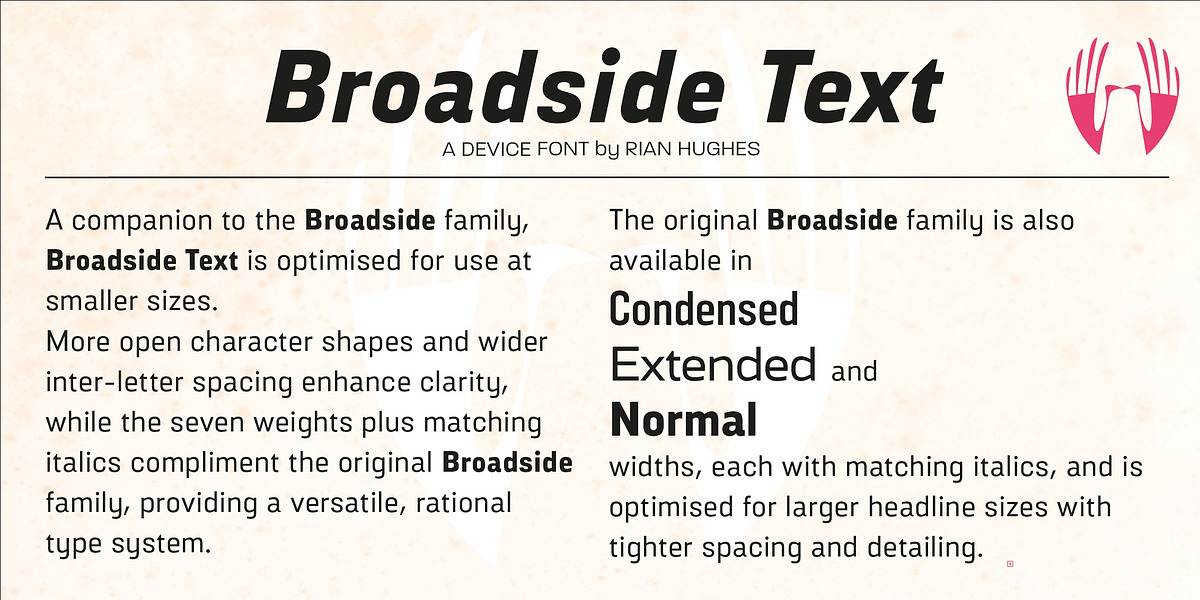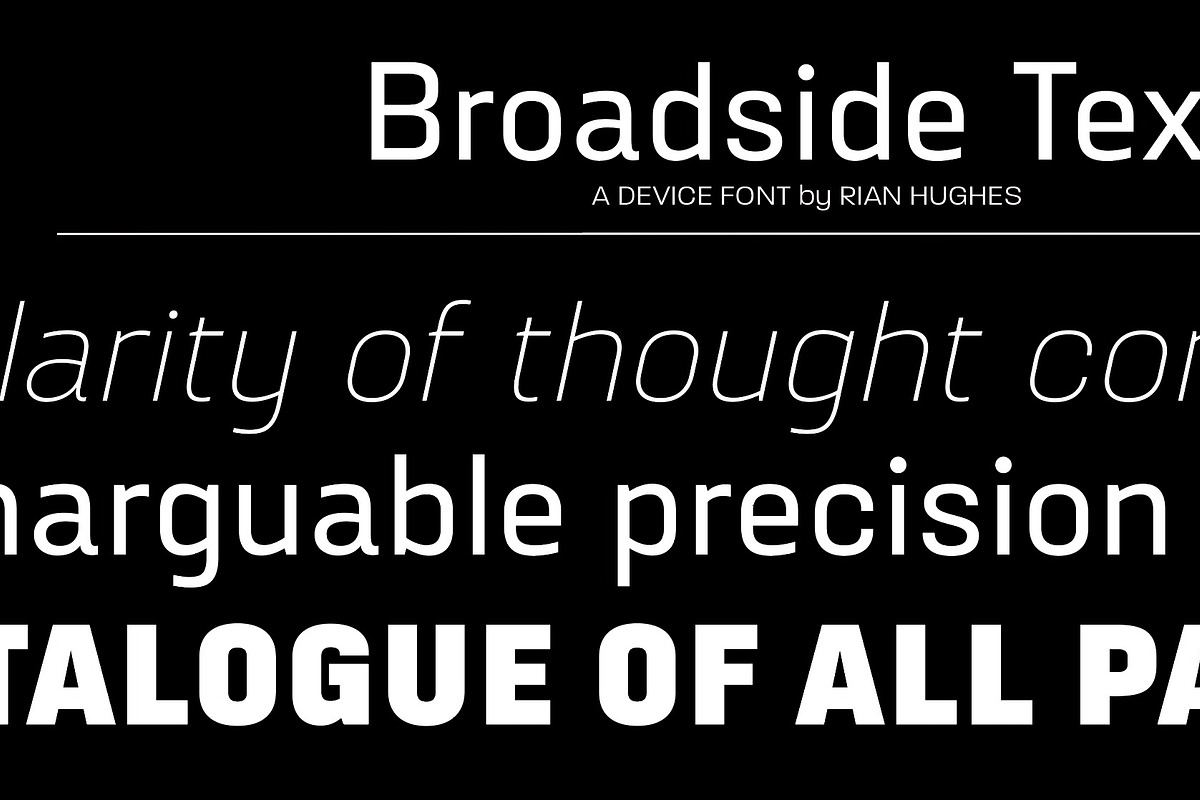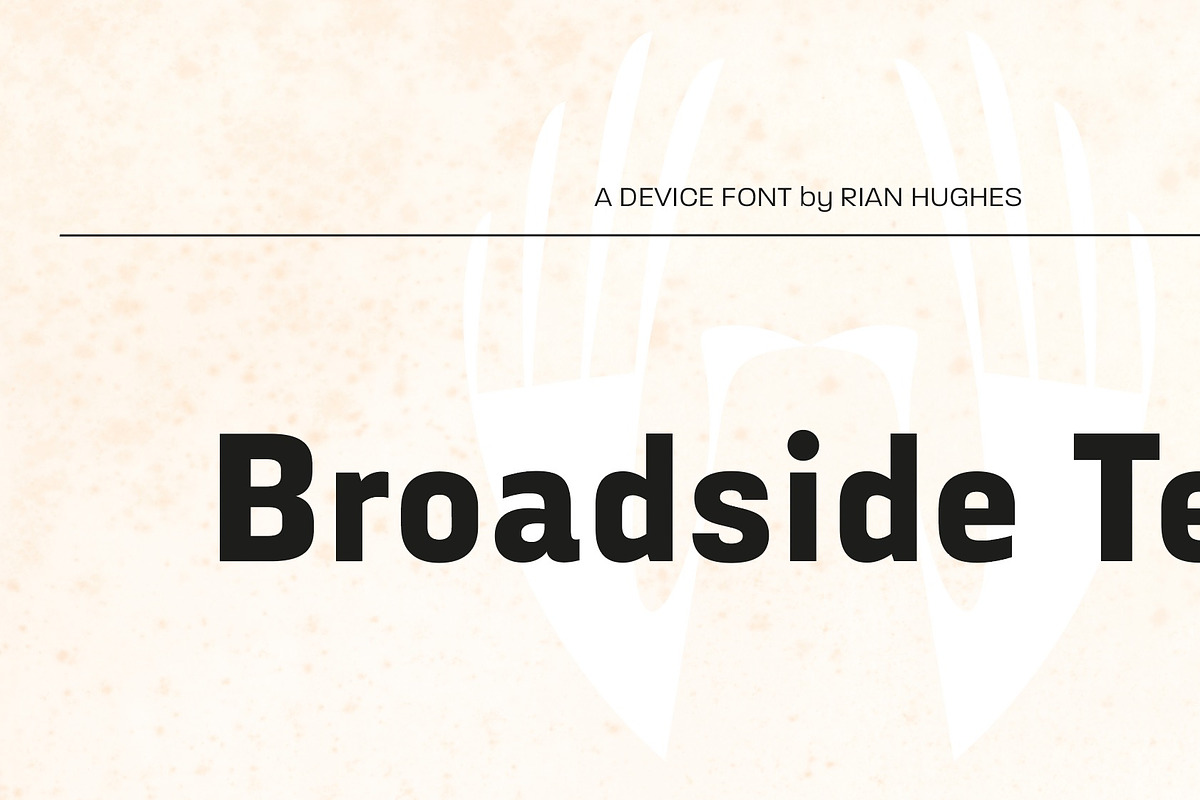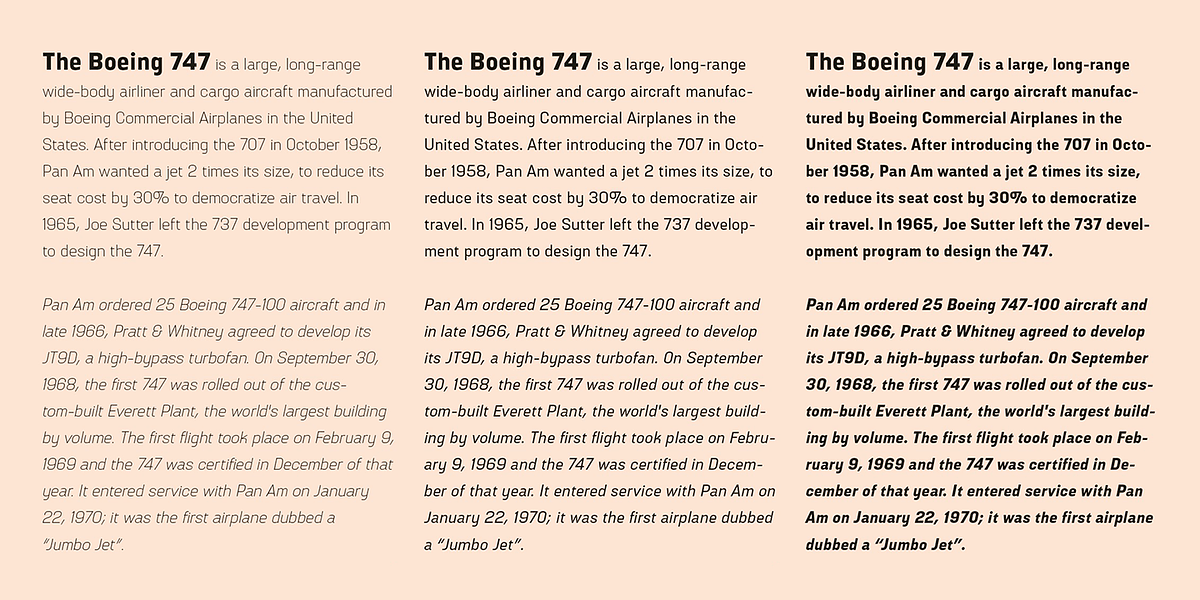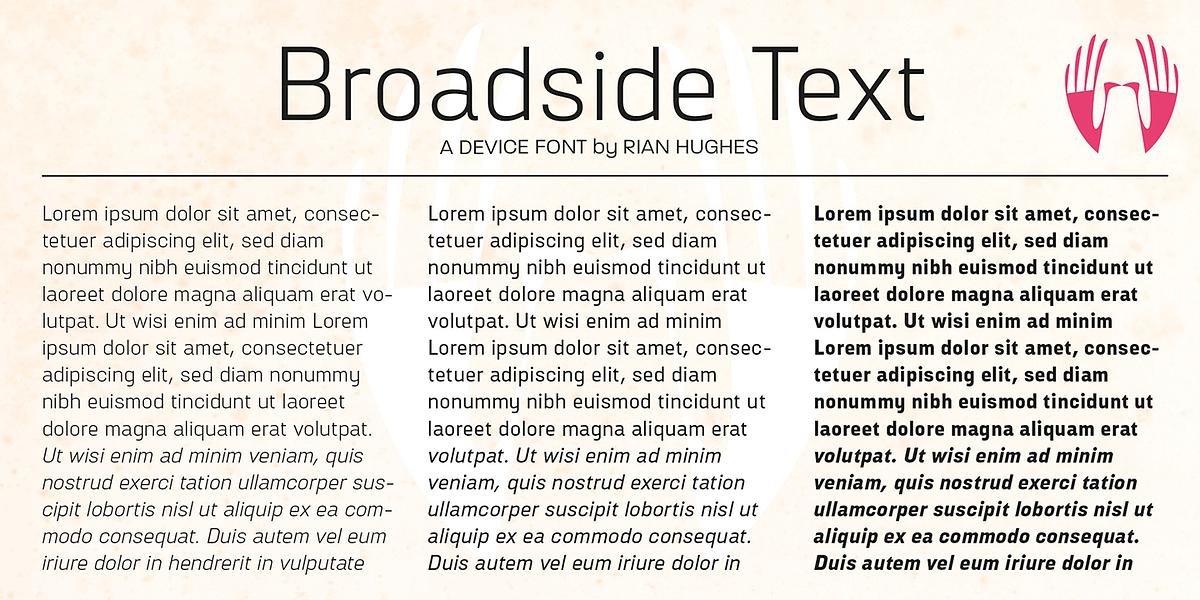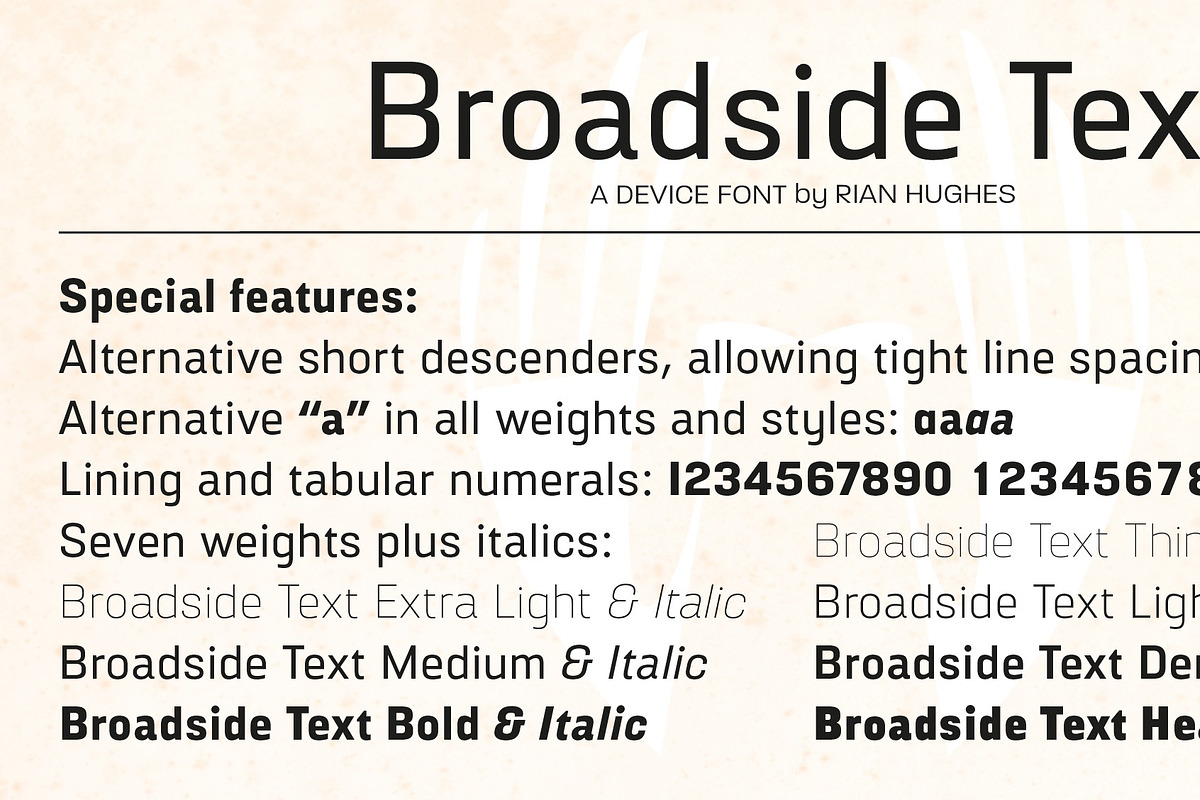
Broadside Text
Broadside Text is a sans-serif typeface designed for legibility at smaller sizes. Its inspiration comes from the hand-drawn sans serifs prevalent on patriotic posters and advertisements from the 1940s and 1950s. The font family offers seven weights across condensed, normal, and extended widths, with italic styles for each weight. Broadside Text features open counters and generous letter-spacing to enhance readability, making it suitable for both headlines and body text.